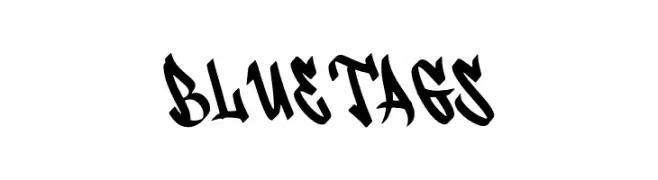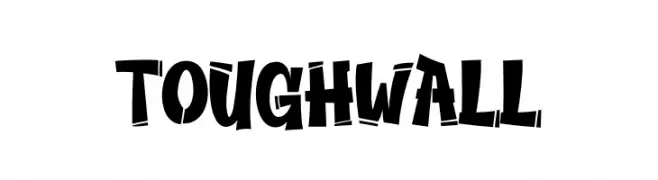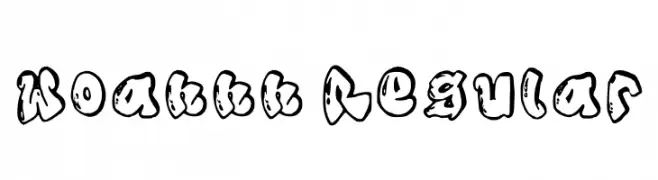
( Fonts by Bruno Corrente )
A sharp, angular font with a graffiti-inspired style.
( Fonts by Ikiiko Type )
A bold, graffiti-inspired font with sharp, angular lines and dynamic style.
( Fonts by FG Studios )
A bold, graffiti-inspired font with dynamic and playful characters.
( Fonts by Idebareng )
A bold, graffiti-inspired font with dynamic, irregular strokes.
( Fonts by Ronny Studio )
A bold, graffiti-inspired font with sharp angles and dynamic shapes.
( Fonts by Din Studio )
A bold, graffiti-inspired font with sharp, angular edges and a dynamic, dripping effect.
( Fonts by Forberas Club )
A bold, graffiti-inspired font with sharp, angular edges and a dynamic style.
( Fonts by Grewfont Studio )
A bold, edgy font with angular, graffiti-inspired characters.
( Fonts by Ida Bagus Surya Prabawa Putra )
A bold, playful, and hand-drawn font with a graffiti-like aesthetic.
( Fonts by Rochart Studio )
A bold, graffiti-inspired font with sharp, angular edges and dynamic style.